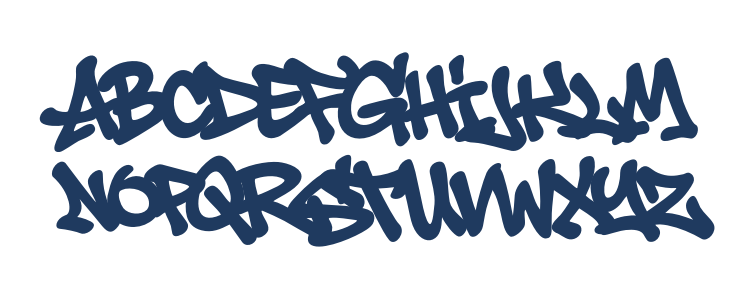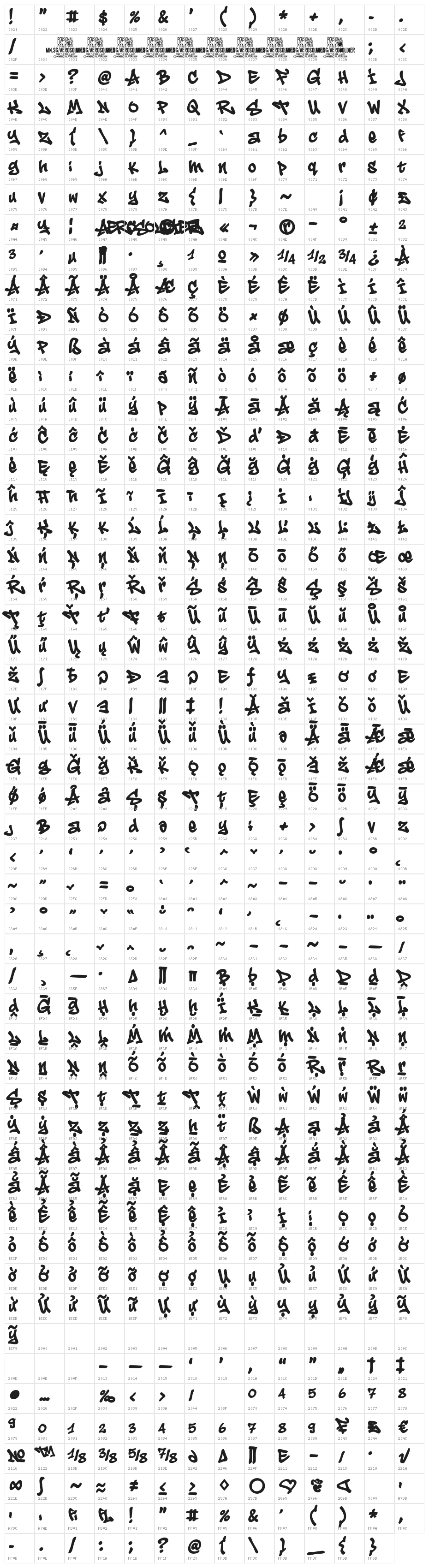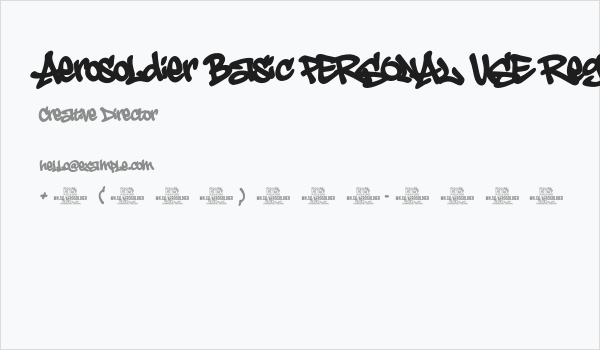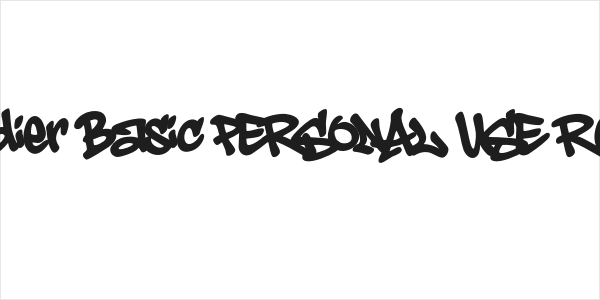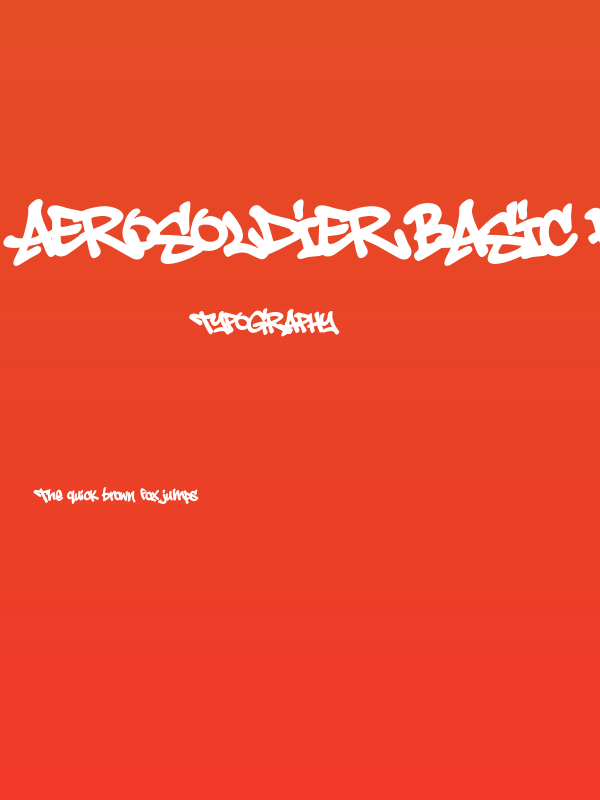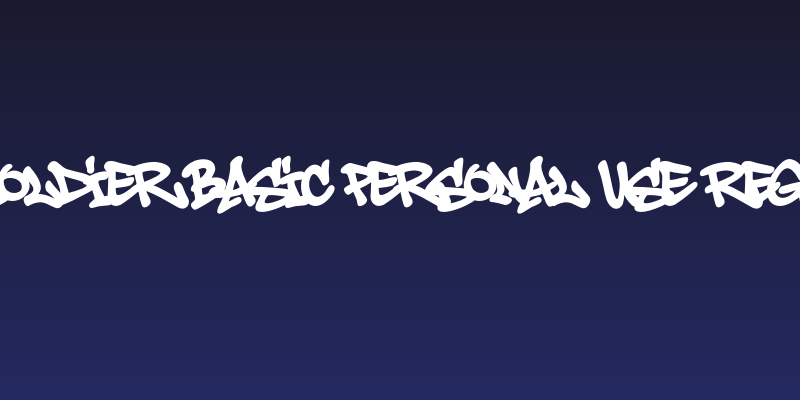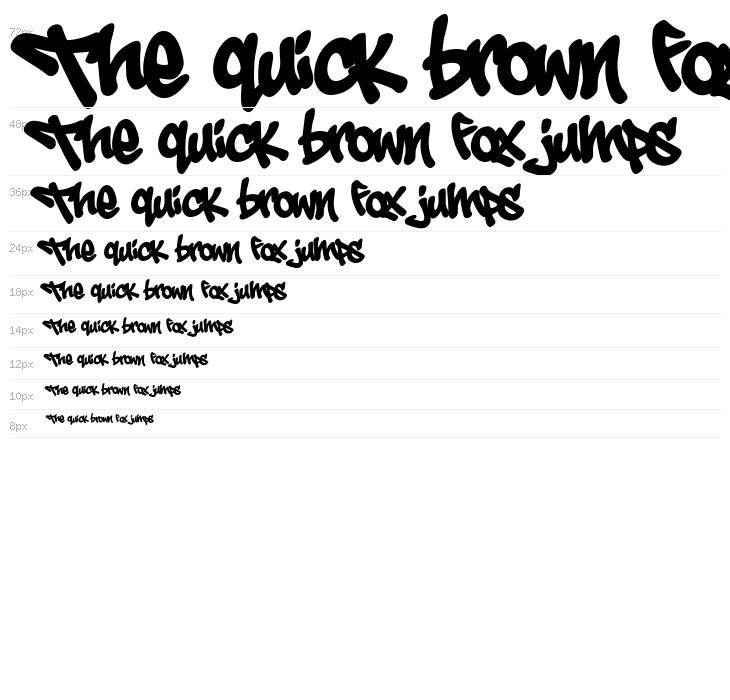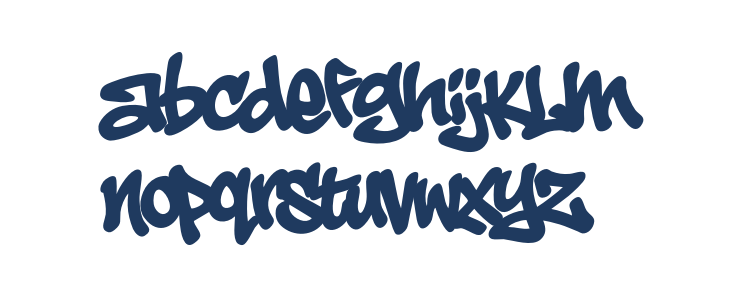
Aerosoldier Basic PERSONAL USE Regular Font
Aerosoldier Basic PERSONAL USE Regular Description
A bold, graffiti-inspired handwritten font with thick strokes, dynamic curves, and energetic letterforms. The characters are closely spaced, with exaggerated ascenders and descenders, and a playful, urban aesthetic.
| Overall Style | Decorative, Urban, Graffiti |
| Use Case | Logos, Headlines, Posters, Event Flyers |
| Proposed Projects | Street art posters, urban branding, music album covers, event flyers, youth-oriented designs. |